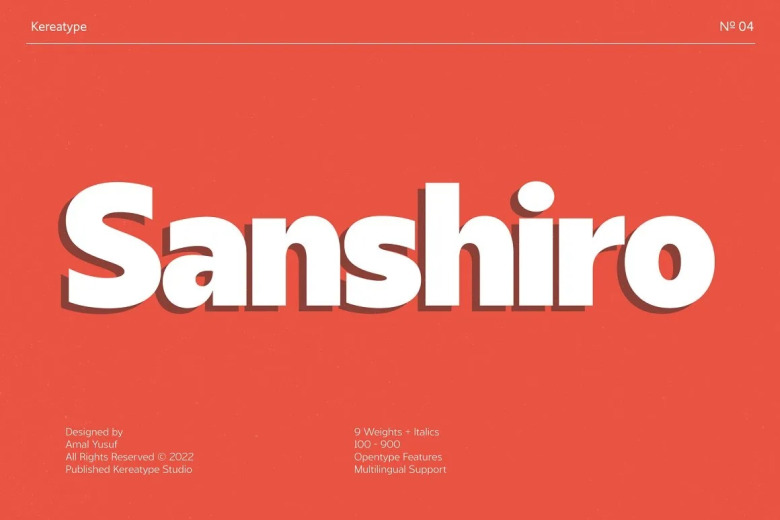
Sanshiro Font
Sanshiro is an elegant sans serif typeface with a wide range of weights from thin to extra bold. Its nine styles–including matching italics–offer versatility for text-based designs or displays requiring impact. The normal weight strikes an ideal balance between form and function, featuring carefully calibrated proportions that enhance legibility for lengthy passages. Meanwhile, the bolder weights stand out with distinctive signatures yet remain comfortable on the eyes.
Whether for lengthy articles, concise statements or eye-catching banners, Sanshiro’s harmonious forms provide clarity across an array of media while complementing a broad range of visual aesthetics. Designers will find this multitalented sans serif family serves content admirably in print, onscreen or wherever communication matters most.
Sanshiro Sans Serif Font